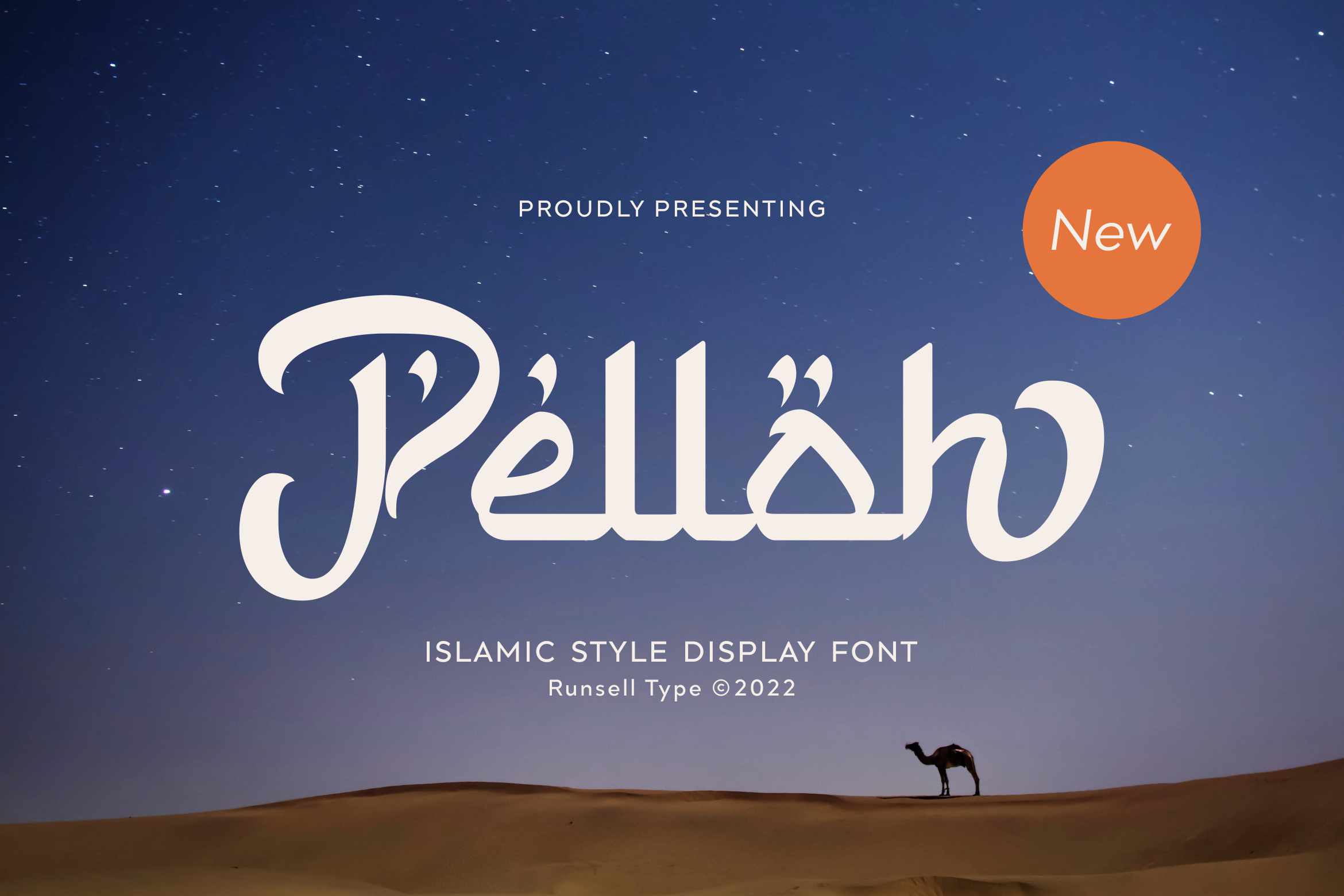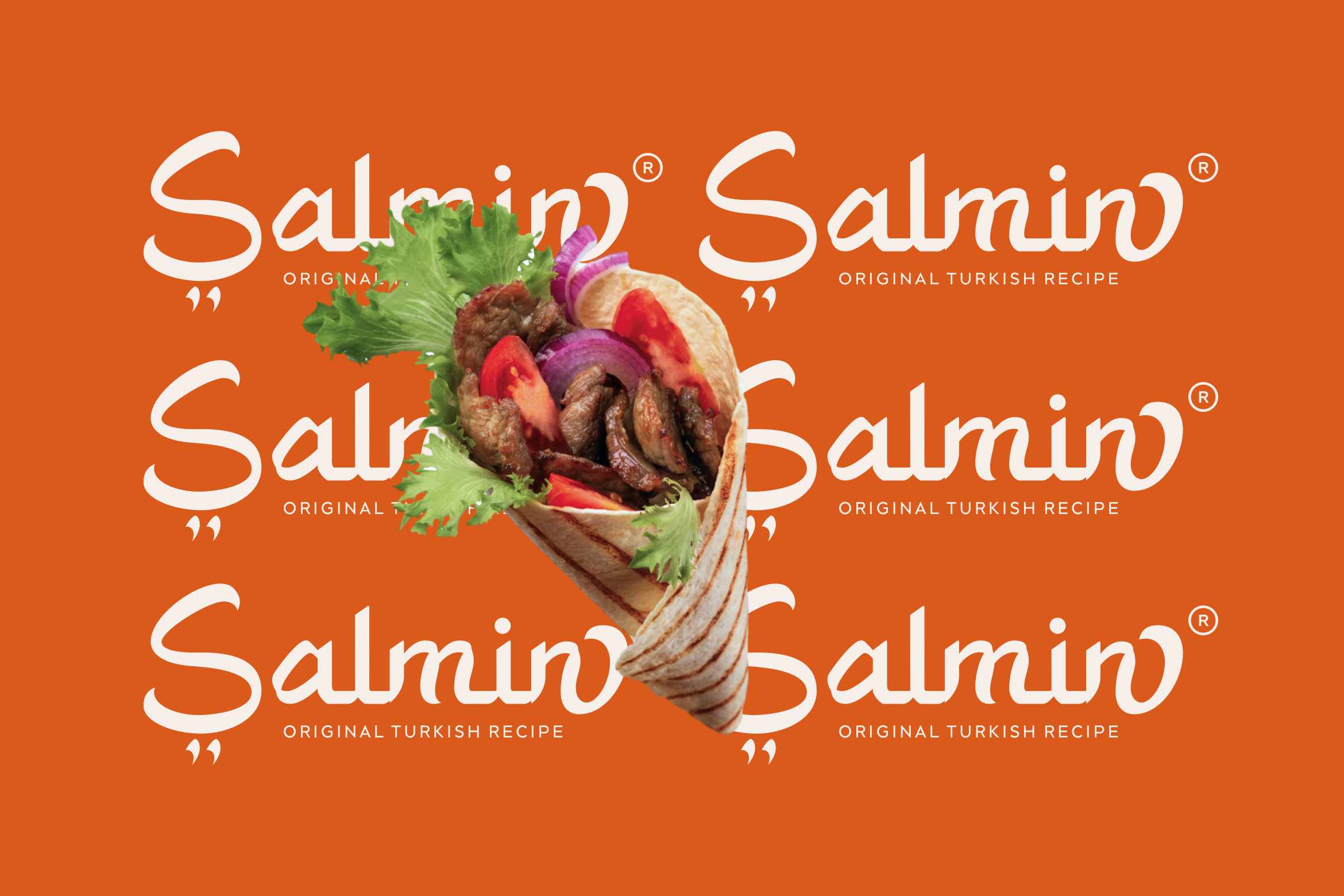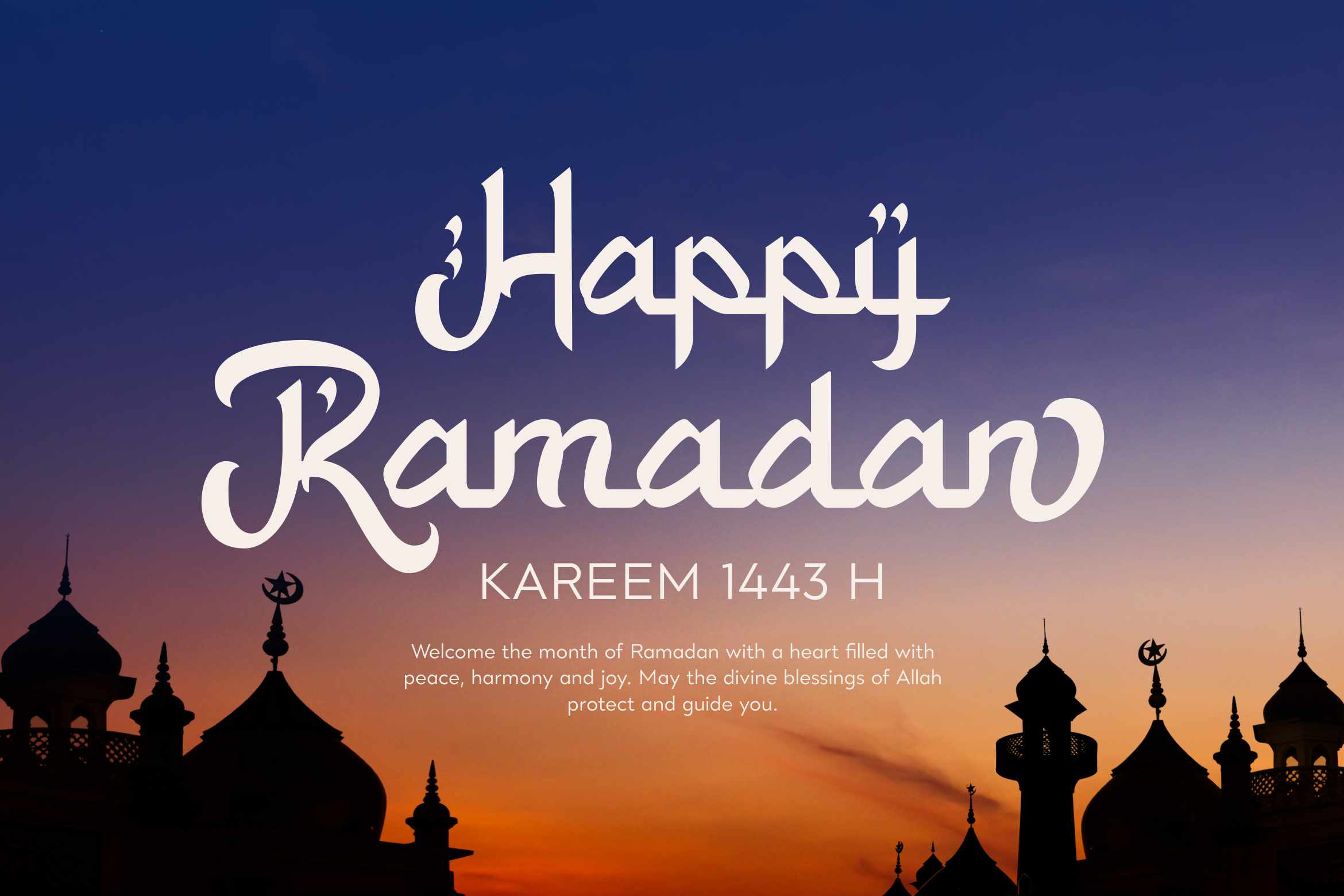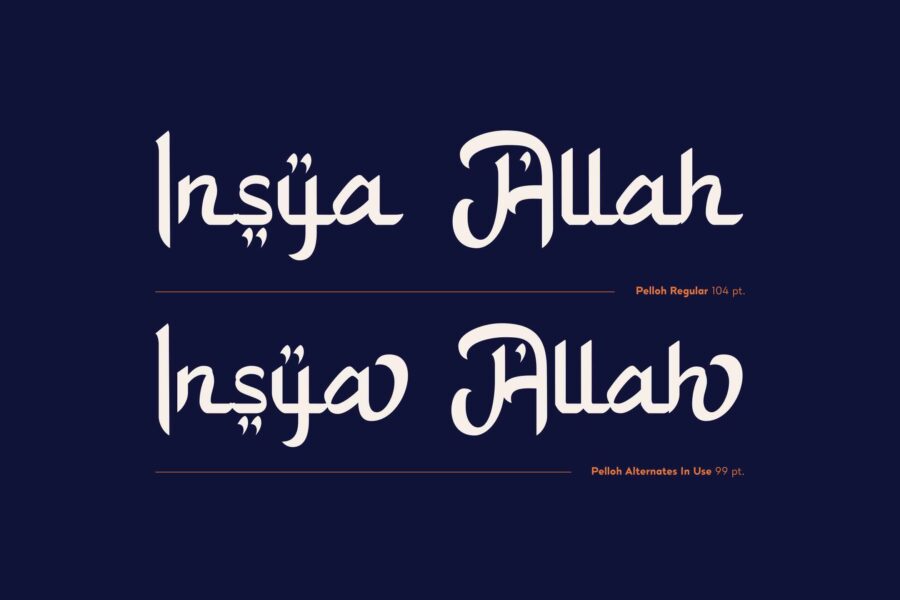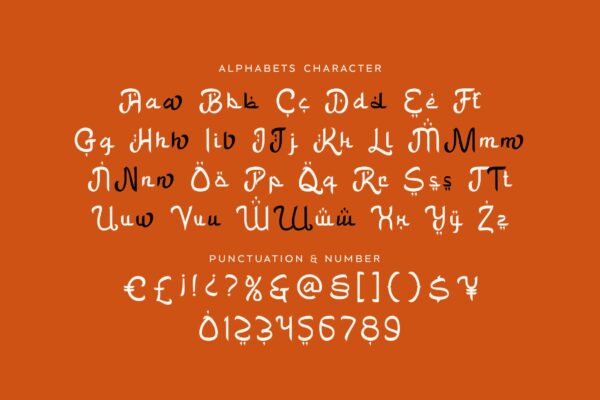
Pelloh is a uniquely stylized Islamic display font that blends contemporary elegance with cultural depth. Inspired by traditional Arabic calligraphy but reimagined with a modern twist, this font features smooth flowing curves, dynamic strokes, and distinctive diacritics that give it a spiritual yet approachable aesthetic. Its bold personality makes it perfect for Ramadan greetings, Halal product branding, Islamic events, or contemporary Middle Eastern design projects.
This font includes uppercase, lowercase, punctuation, numerals, and multilingual support, as well as a full set of stylistic alternates for creative versatility. Pelloh is ideal for those looking to bring a fresh identity to their religious, culinary, or cultural designs with an unmistakable Islamic flair.
Pelloh